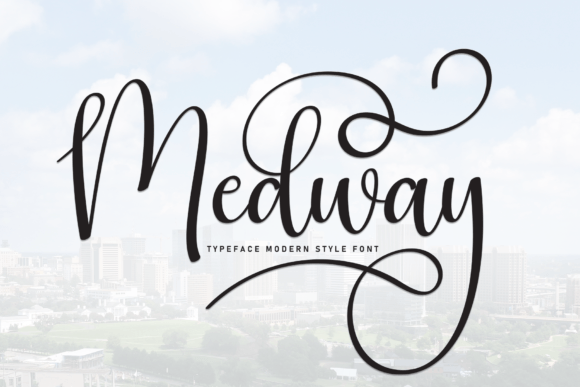
Journey into the world of Medway Font, an enthralling script font that awakens your senses with its heartfelt charm. Sculpted with meticulous care, each letter in this font family dances across the page, evoking a sense of warmth and approachability. Its delicate curves, reminiscent of a gentle breeze, invite you to explore the depths of your creativity.
Step into a realm where emotions find their voice through Medway Font. Its graceful lines and soft edges make it a storyteller's dream, effortlessly conveying heartfelt messages that resonate with the soul. Wedding invitations adorned with Medway's elegant script become cherished keepsakes, capturing the essence of love and commitment.
Unleash your creativity and craft captivating designs that radiate warmth and personality. Whether you're crafting personalized cards, creating heartwarming posters, or designing enchanting logos, Medway Font will guide you through your artistic aspirations. Its versatility extends to social media posts, blog headers, and marketing materials, adding a touch of allure to every visual creation.
With its inked charm, Medway Font has captivated the world of script tattoo art. Its flowing lines and graceful curves lend themselves perfectly to meaningful quotes, beautiful names, and symbolic designs. Its ability to evoke emotions and tell stories through ink makes it a favorite among tattoo enthusiasts, leaving a lasting impression on the skin.
Andikastudio, the creative force behind Medway Font, has poured their passion and expertise into crafting this exquisite typeface. Their dedication shines through in every stroke and curve, resulting in a font that exudes elegance and charm. As you explore Medway Font, you'll discover a world of endless possibilities, waiting to be transformed into captivating visual masterpieces.